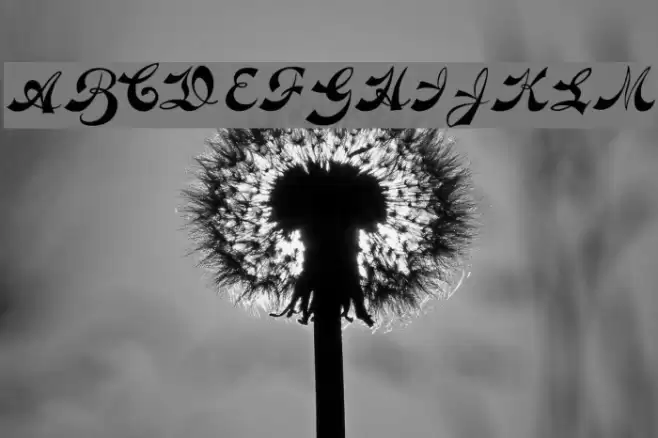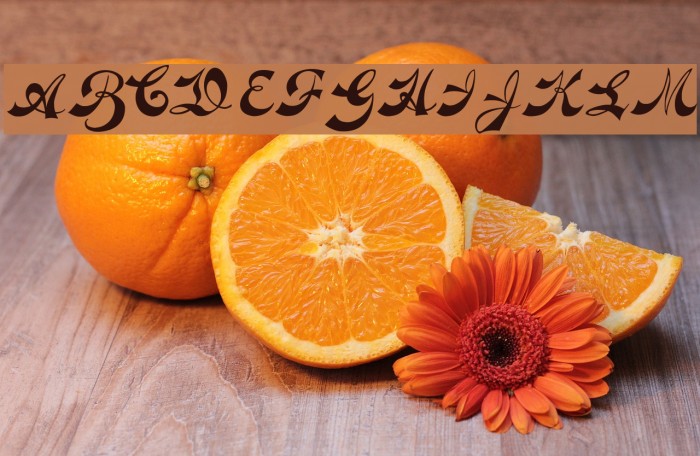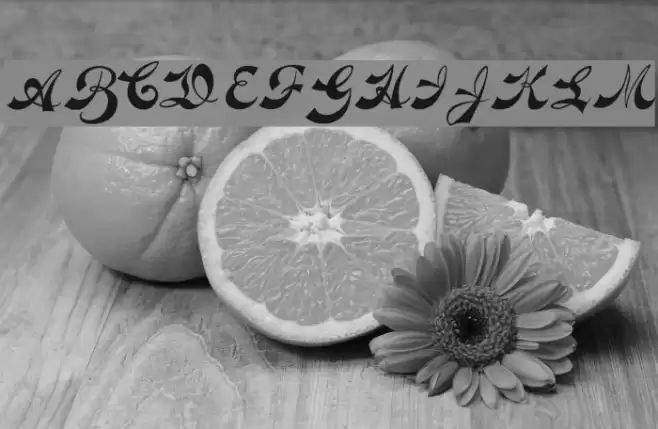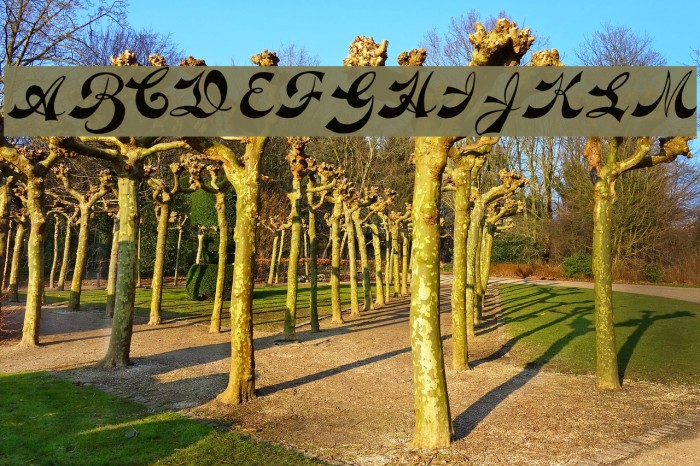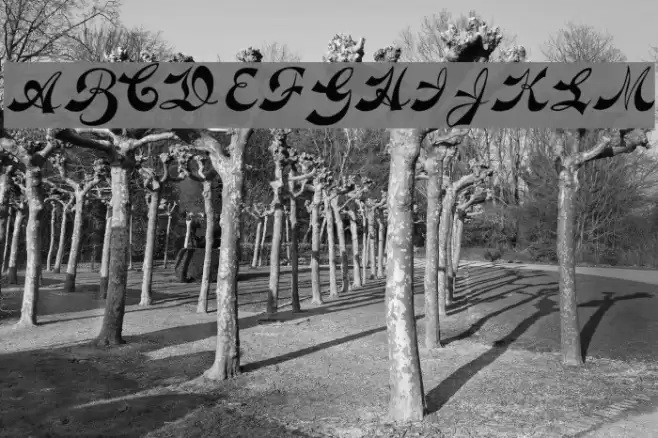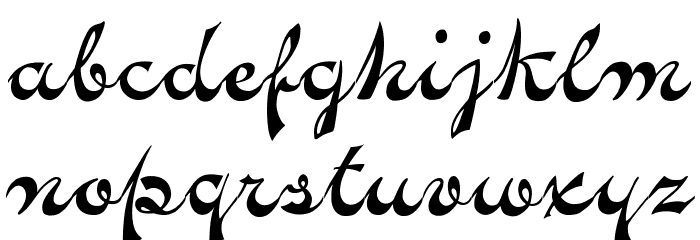
Novelty Script plain Font
Novelty Script plain Description
This font features a flowing, cursive style with elegant, sweeping curves and a dynamic presence. The uppercase letters exhibit a bold, dramatic flair with intricate loops and swashes, while the lowercase letters maintain a consistent fluidity, enhancing readability. The numerals are distinct and stylish, complementing the overall script aesthetic. The special characters are designed to match the ornate style, making them suitable for decorative purposes. This font's unique character and artistic design make it ideal for creative projects that require a touch of sophistication and flair.
| Use Case | Logos, Invitations, Decorative text |
| Proposed Projects | Ideal for wedding invitations, greeting cards, branding, and logo design. |